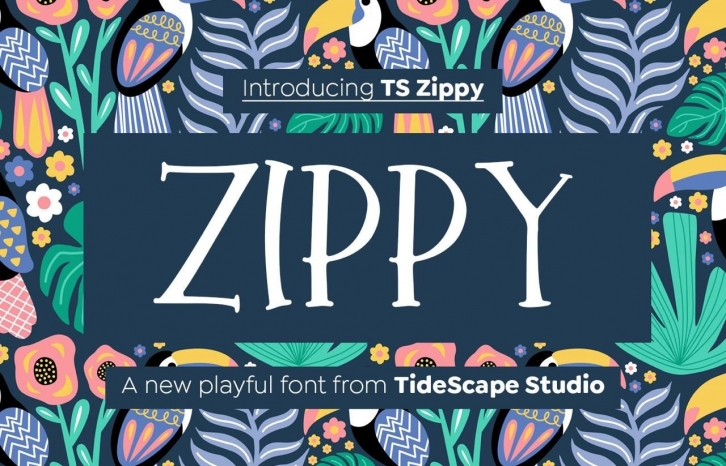
Zippy is a fun kids-inspired handwritten font with bags of personality! Perfect for all kinds of creative design projects, crafts, Cricut, T-shirts, logos, books, cards, invitations, quotes, children-themed designs – you name it!